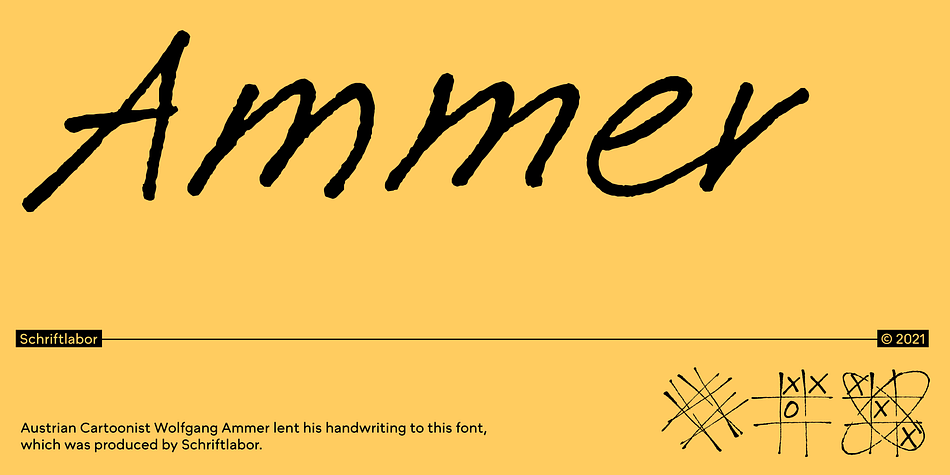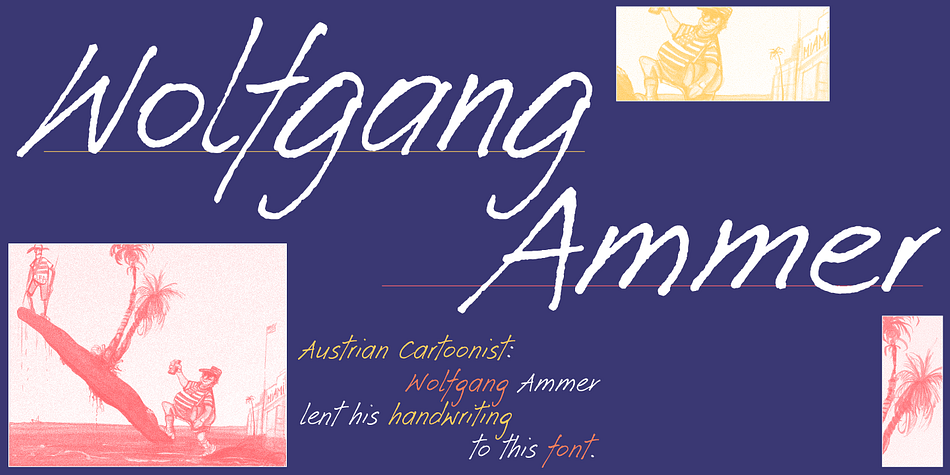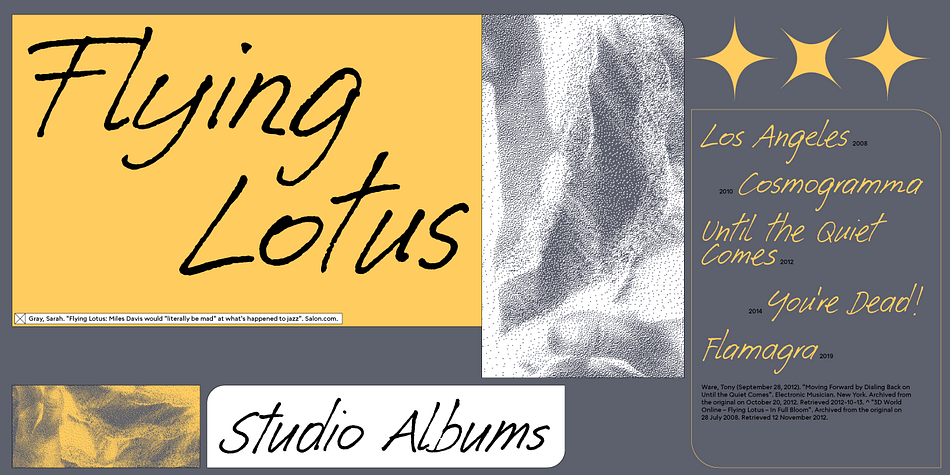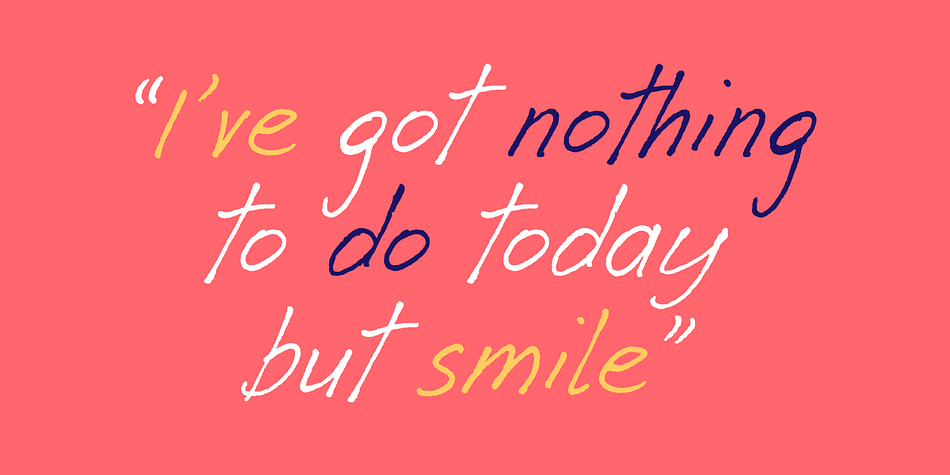
Ammer is a hand drawn font published by Schriftlabor.
Austrian Cartoonist Wolfgang Ammer lent his handwriting to this font, which was produced by Miriam Surányi. Wolfgang already uses the font in his daily routine: It facilitates corrections and translations of his cartoons for international newspapers.
Rich in contextual alternates, Ammer contains about 1800 glyphs. Each character has multiple alternates. And a complex OpenType substitution feature makes sure that the same variant does not appear twice in a line.
As a special gimmick, the font contains a Tic Tac Toe game: To activate it, type a # and turn on stylistic set 20. Then use digits 1–9 for setting the naughts and crosses on their places.
Designers | Wolfgang Ammer, Miriam Surányi, Rainer (Eric) Erich Scheichelbauer |